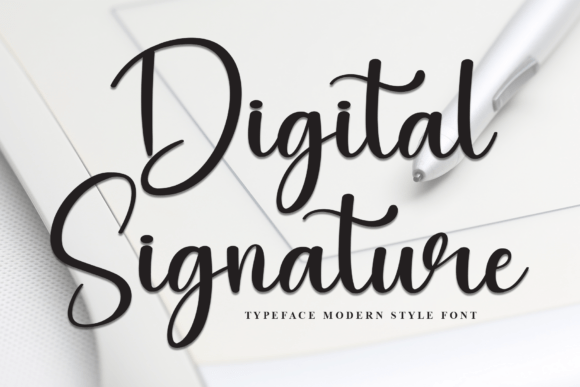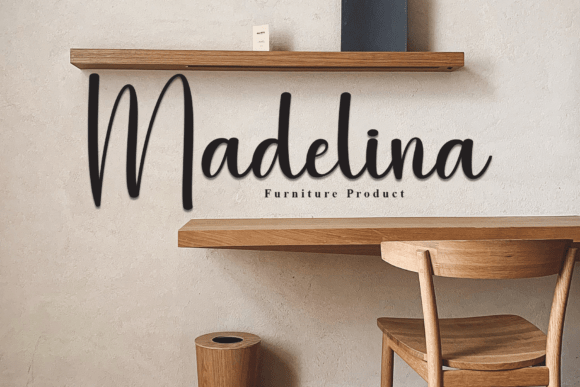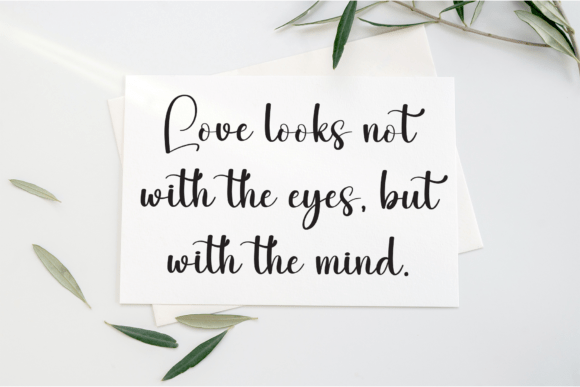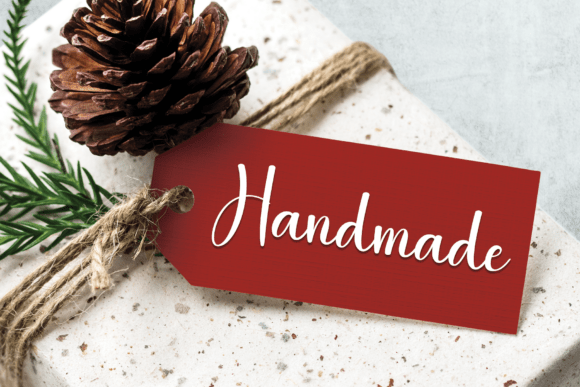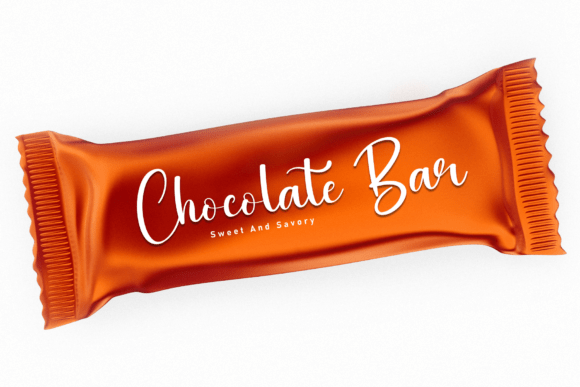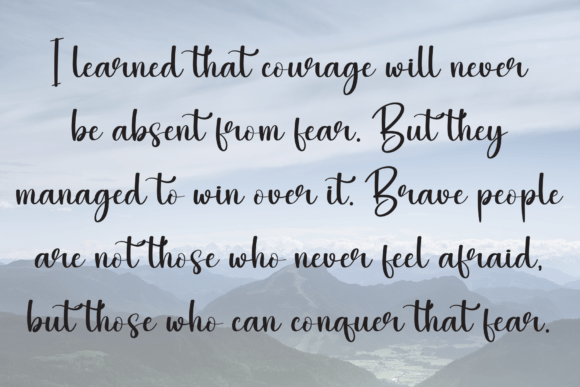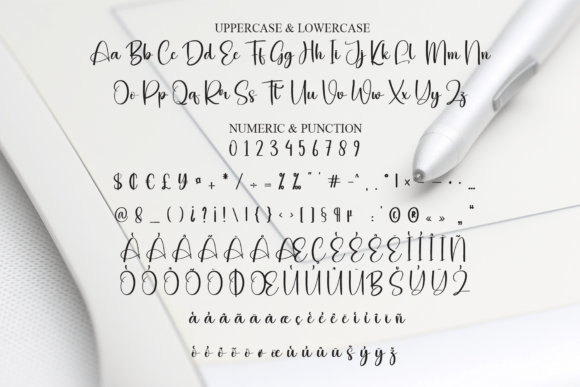
The Perfect Script Font for Your Next Creative Project
Have you ever been tasked with designing a wedding invitation or a love letter, and you wanted to capture the essence of romance and class in your design? I know I have. It’s those moments when the right font can make all the difference between a good design and a great one. That’s why I’m excited to introduce you to the Digital Signature Font, a beautifully elegant script font that’s sure to leave a lasting impression.
This stunning font is designed to evoke a sense of luxury and intimacy, making it perfect for upscale designs, branding, and social media. With its smooth curves, flowing strokes, and refined details, the Digital Signature Font is a valuable asset for any designer looking to add a personal touch to their projects.
Digital Signature Font Key Features
- Unique Characteristics: The digital signature font features a unique, handwritten style that mimics a real signature, making it ideal for personal and business use.
Review of Digital Signature Font
I’ve had the chance to work with the Digital Signature Font, and here are my honest thoughts.
- The font is sleek and modern, perfect for creating a professional digital signature.
- It’s highly customizable, allowing users to adjust font sizes, colors, and styles to match their brand.
- The font is compatible with a wide range of devices and software, making it easy to use across different platforms.
- The design is clean and legible, making it easy to read even in smaller font sizes.
- The font may not be suitable for very small or very large font sizes, as it can become pixelated or lose its clarity.
- The customization options can be overwhelming for users who are not familiar with font design.
- The font may not be as unique or distinctive as some other digital signature fonts on the market.
Overall, I think the Digital Signature Font is a solid choice for anyone looking to create a professional digital signature. While it may have some limitations, its customization options and compatibility make it a versatile and user-friendly font. With a little practice and patience, users can create a signature that truly reflects their brand and style.
Use a high-quality font that mimics a handwritten signature for a professional look. Experiment with different font sizes and styles to find the perfect balance. Add a digital signature effect to make your signature stand out. Use a consistent design theme throughout your document or design to maintain a cohesive look.
Digital signature fonts are commonly used in business documents, such as contracts, agreements, and proposals. They are also used in marketing materials, such as brochures, flyers, and social media posts. Additionally, digital signature fonts can be used in personal documents, such as letters, cards, and invitations.